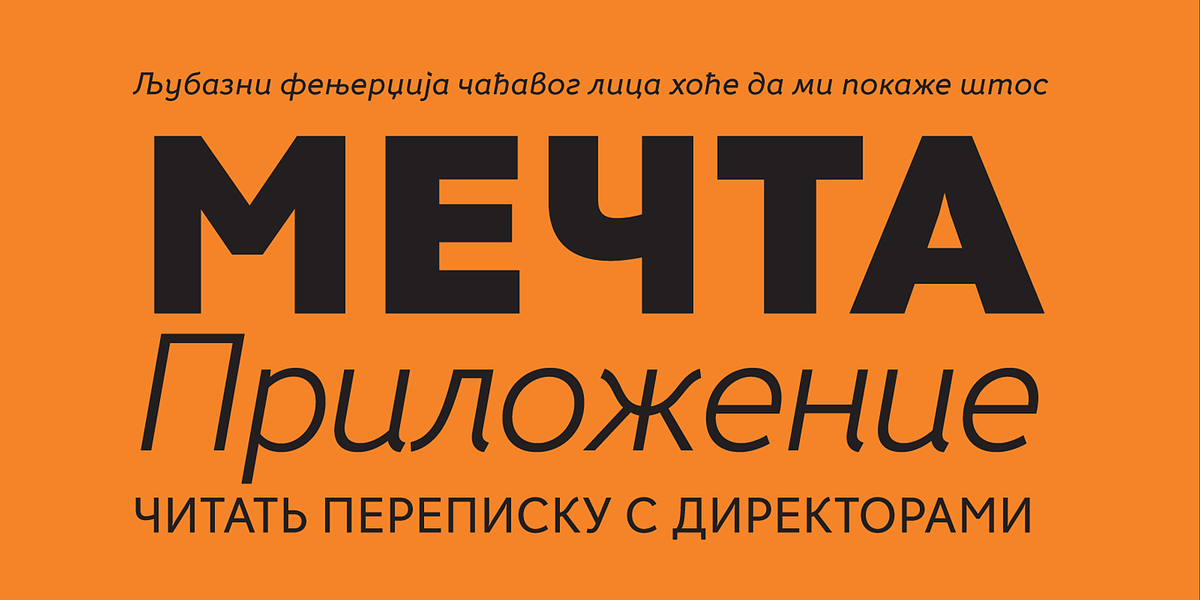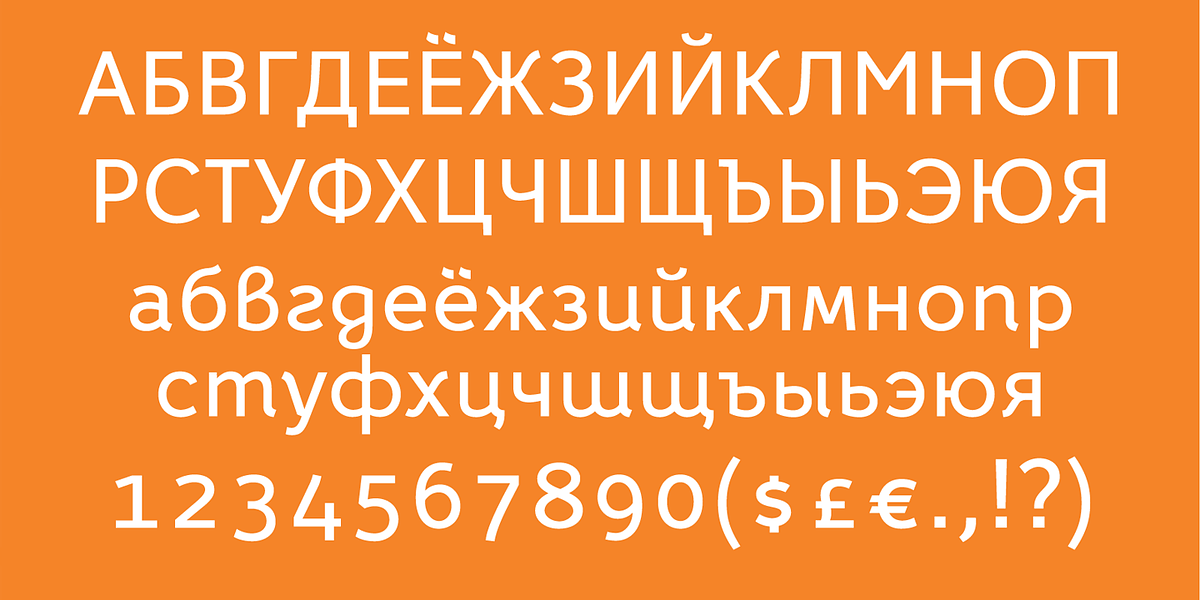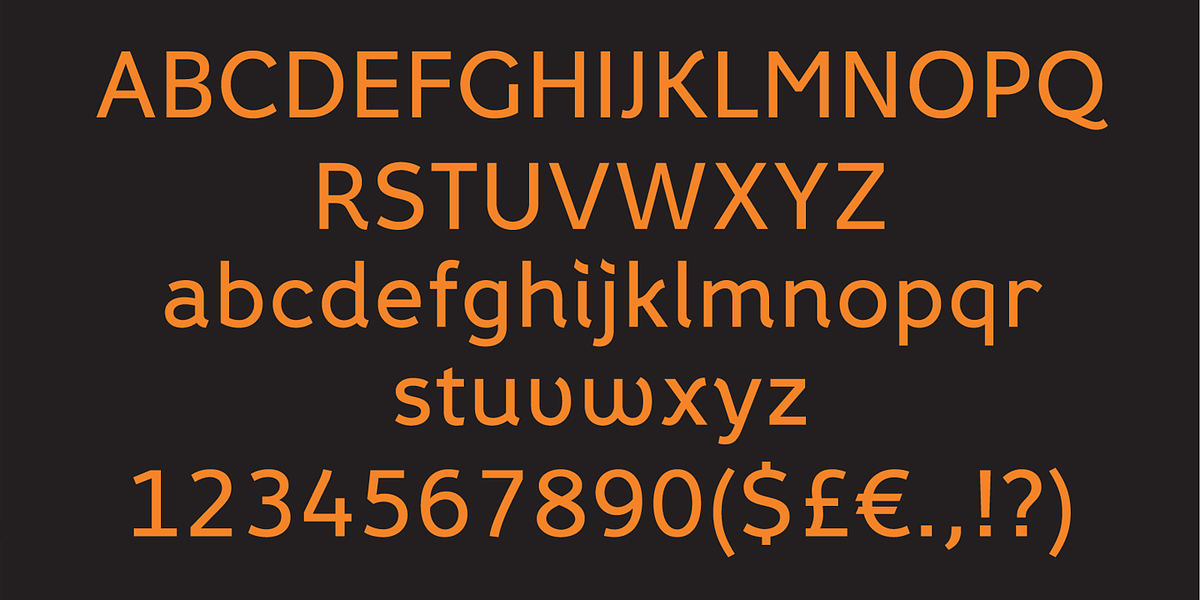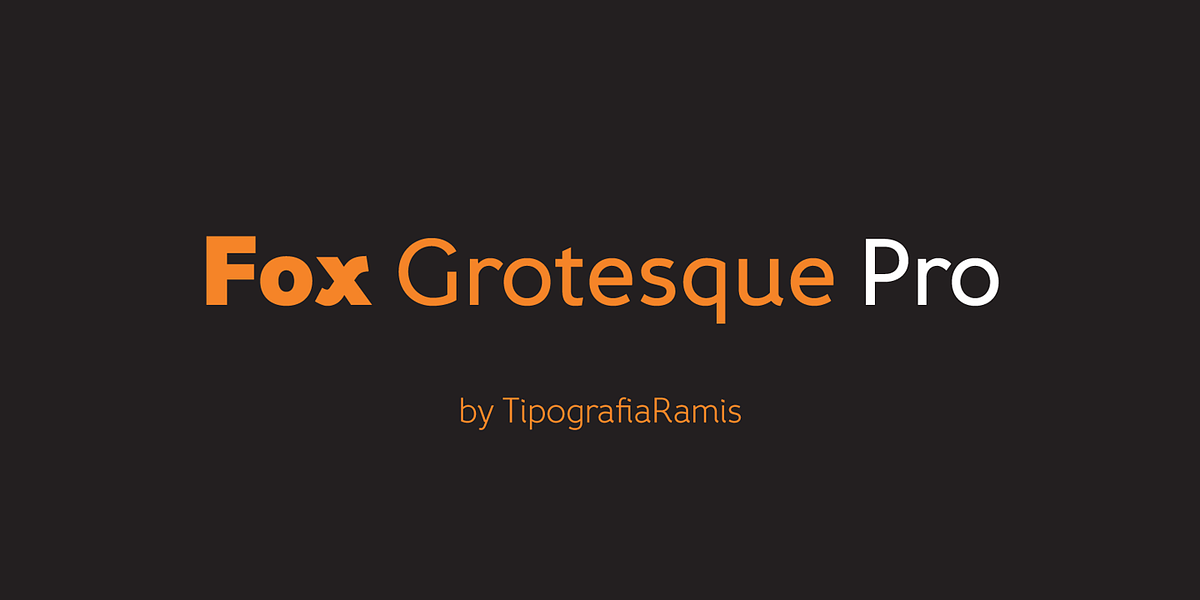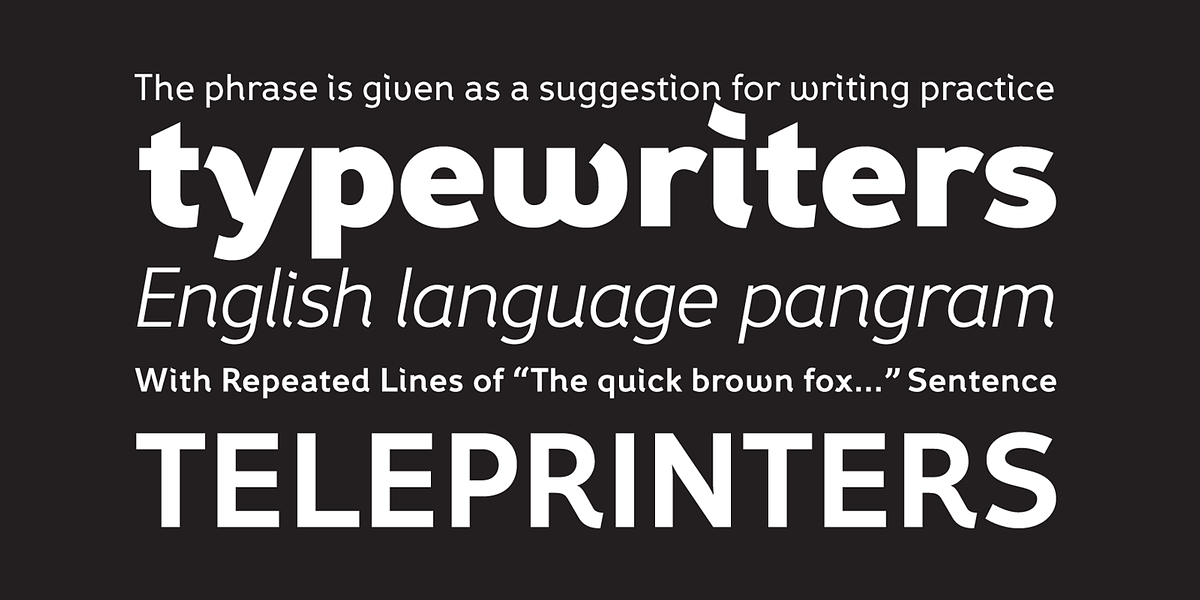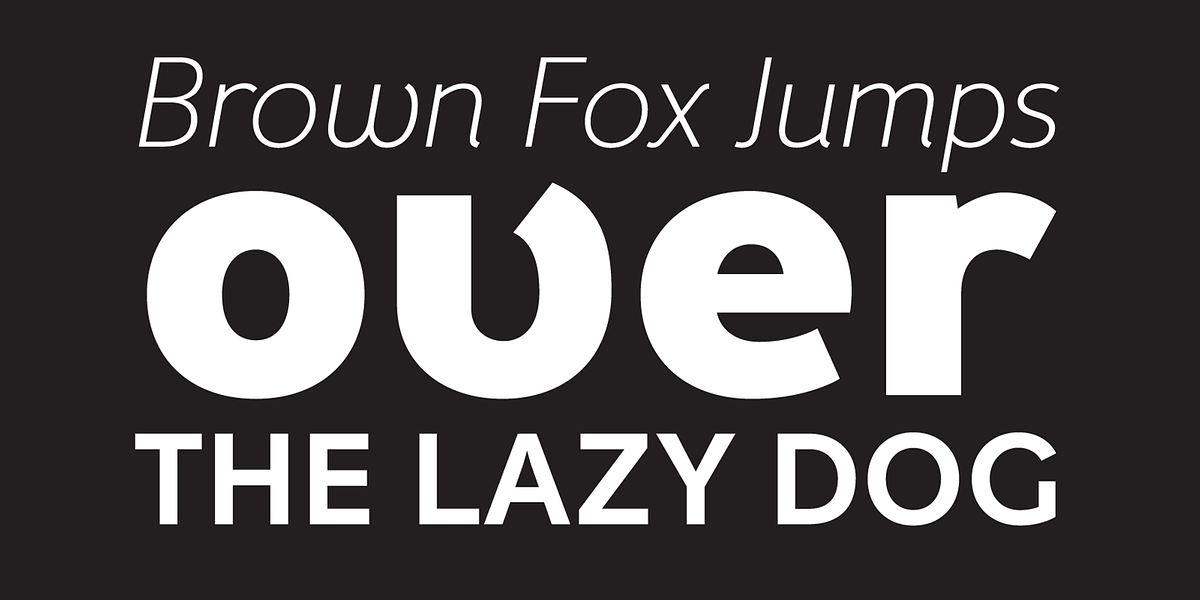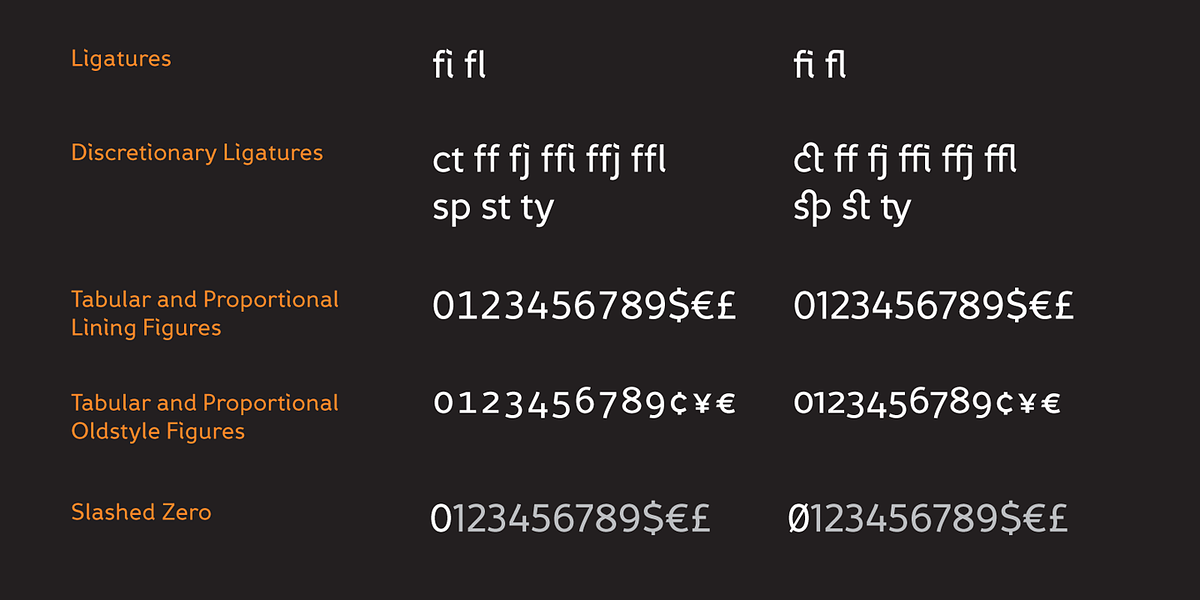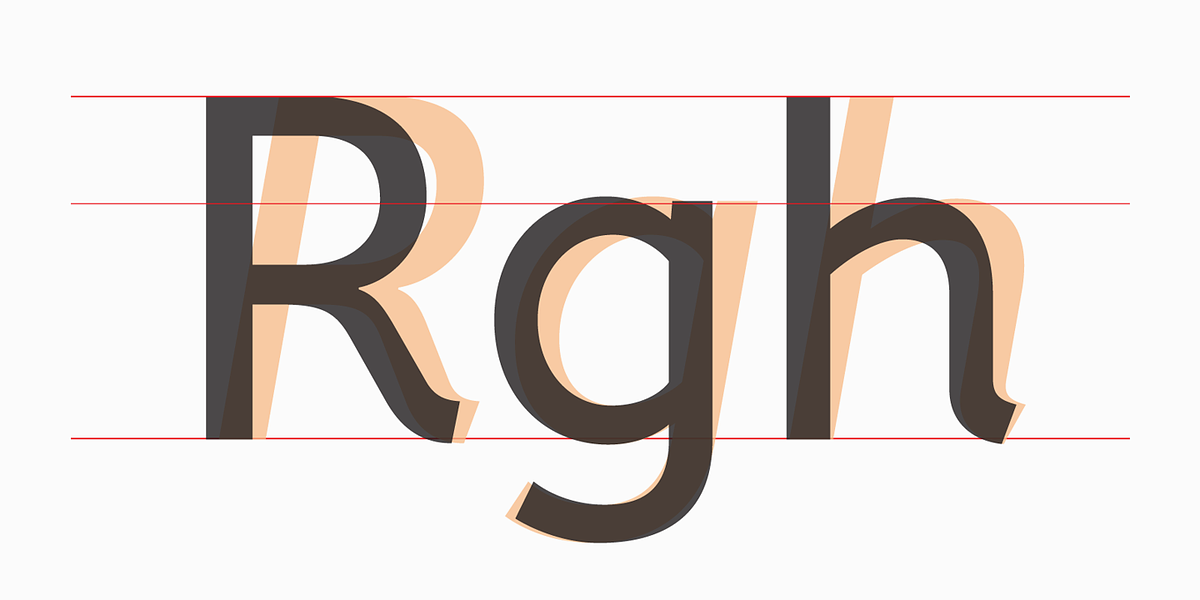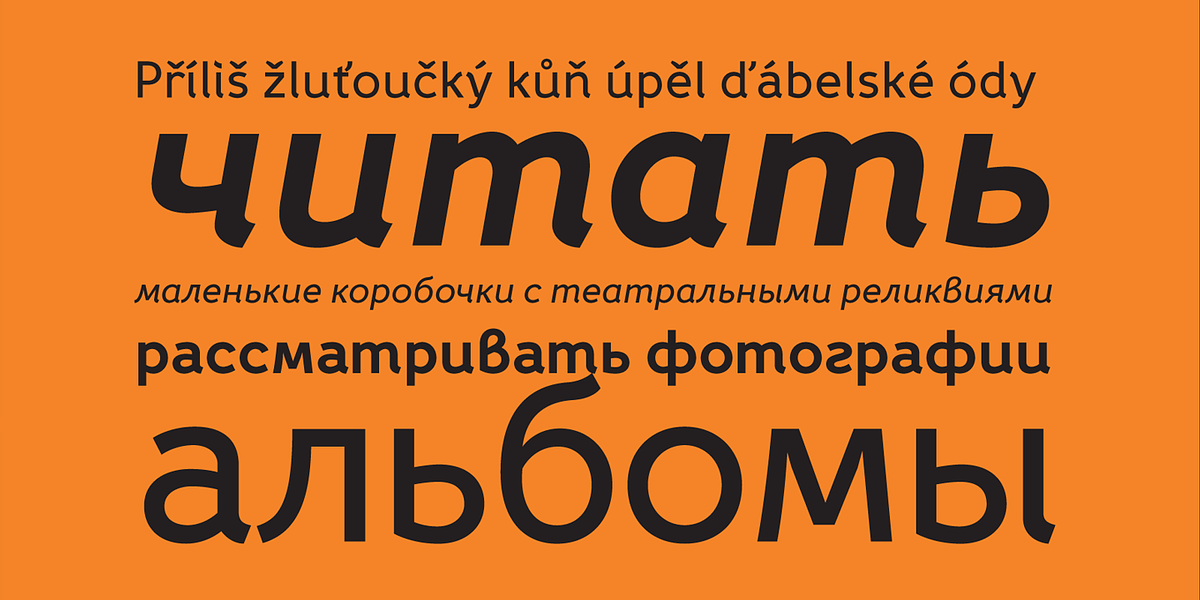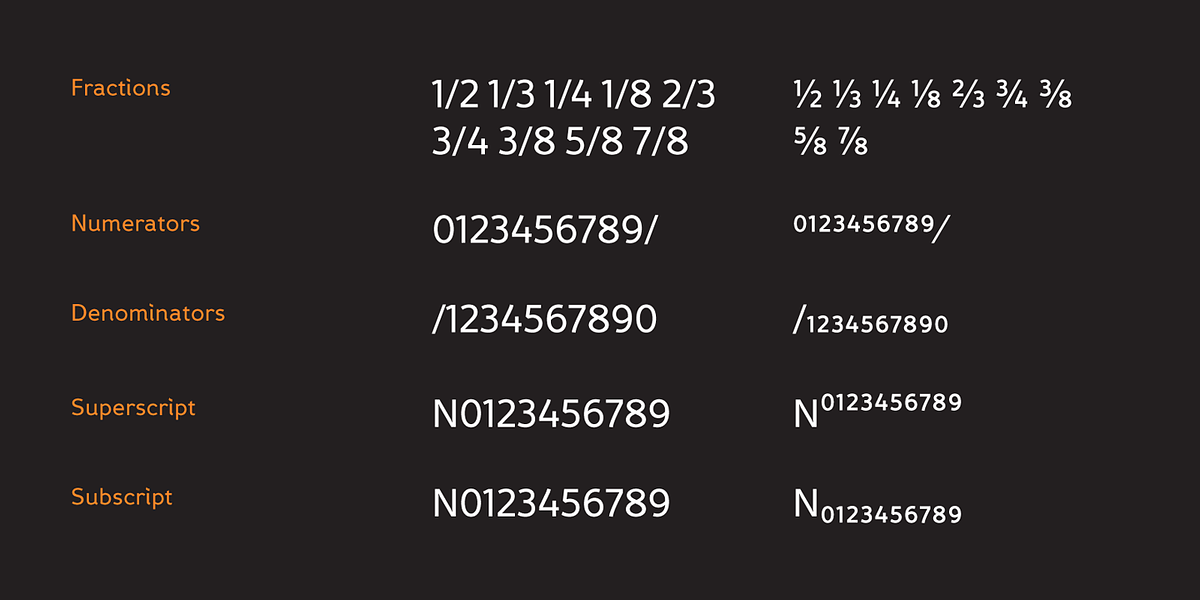
Fox Grotesque Pro
Fox Grotesque Pro is a humanist sans serif font family with ten styles. It offers extensive support for Latin and Cyrillic languages. The typeface comes in OTF format and includes OpenType features like proportional/tabular figures, lining/oldstyle figures, slashed zero, ligatures, and fractions.